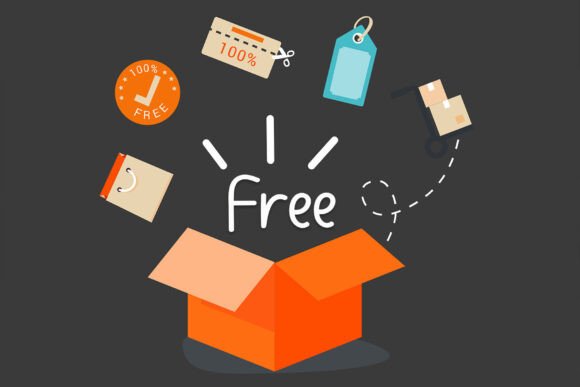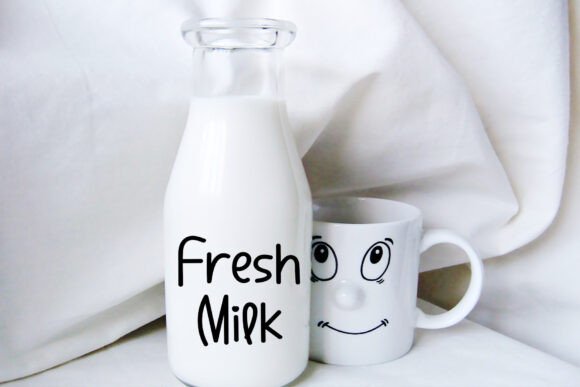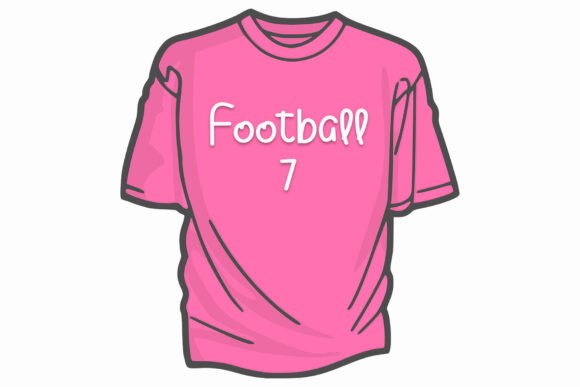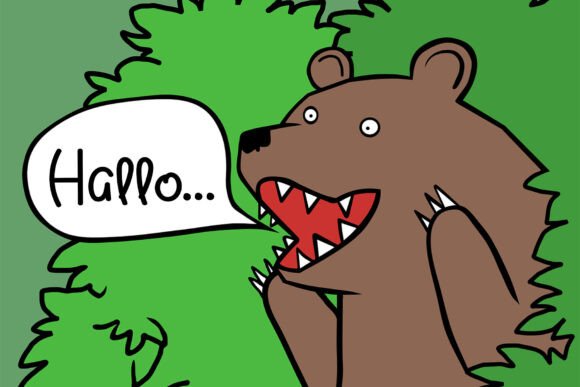
Discover the Elegance of Arfan Font: Elevate Your Designs with a Unique Touch
In the world of typography, fonts play a crucial role in conveying messages, expressing emotions, and adding personality to designs. Among the myriad of fonts available, Arfan Font stands out as a unique and elegant choice, specially crafted to elevate your projects to new heights. Whether you’re a designer, crafter, or simply someone looking for that perfect typographic touch, Arfan Font is an excellent addition to your toolkit.
The Making of Arfan Font
Arfan Font is not just another font; it’s a masterpiece created with a professional hand touch, ensuring each letterform is meticulously designed. This careful crafting results in a font that exudes elegance and sophistication, making it perfect for a wide range of applications. From the makers’ attention to detail to the final product, Arfan Font embodies a blend of creativity and precision.
One of the standout features of Arfan Font is its versatility. This font is incredibly suitable for various projects, including:
- Wedding Invitation Cards: Add a touch of sophistication and romance to your wedding invites with Arfan Font.
- Birthday and Party Invitations: Make your party invites stand out with a font that’s both fun and elegant.
- School Assignments: Give your school projects a professional look with Arfan Font, making them more engaging and presentable.
- Creative Projects: Whether it’s a logo, a poster, or any creative endeavor, Arfan Font can be your go-to choice for adding that unique touch.
Why Choose Arfan Font?
There are several reasons why Arfan Font should be your preferred choice for your typography needs:
- Elegant and Unique: Arfan Font offers a distinct look that can set your designs apart from the rest.
- Professional Touch: The font’s design ensures your projects look professional and well-crafted.
- Wide Applicability: Its versatility means you can use it across various projects, from personal to professional.
Applying Arfan Font to Your Designs
Integrating Arfan Font into your projects is straightforward. Here are some tips to make the most out of this elegant font:
- Pair it Wisely: Combine Arfan Font with complementary fonts to create visual interest and hierarchy in your designs.
- Experiment with Sizes: Play with different font sizes to emphasize certain elements and create a focal point in your design.
- Colors Matter: Choose colors that match the mood of your project and enhance the readability of Arfan Font.
- Be Creative: Don’t be afraid to try out Arfan Font in different contexts and applications. Its versatility encourages experimentation.
Arfan Font is more than just a typeface; it’s a design element that can transform your projects with its elegance and uniqueness. Whether you’re working on a wedding invitation, a school project, or a professional design, Arfan Font offers the perfect blend of style and functionality. Its careful crafting, professional touch, and wide applicability make it an invaluable resource for designers and crafters alike. So, why settle for ordinary when you can make your designs extraordinary with Arfan Font?
Embrace the elegance of Arfan Font and discover a world of typographic possibilities that can elevate your designs to new heights.